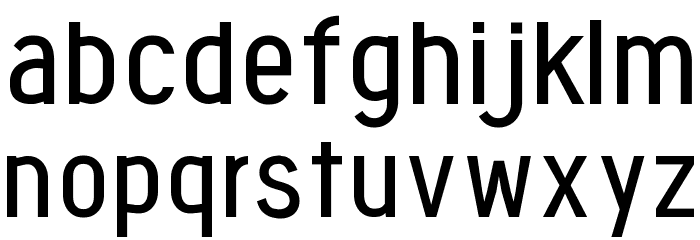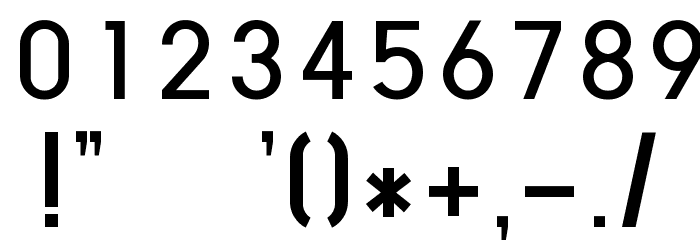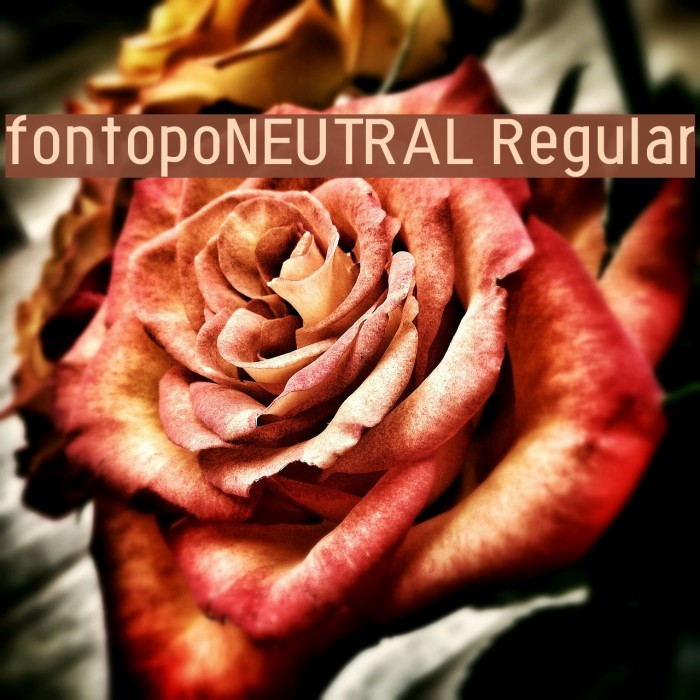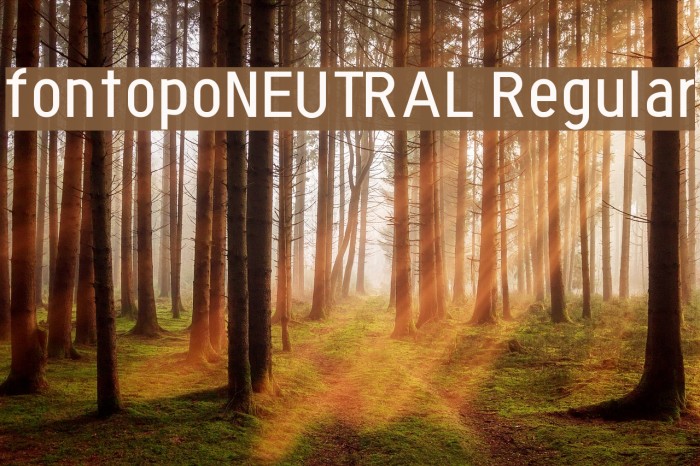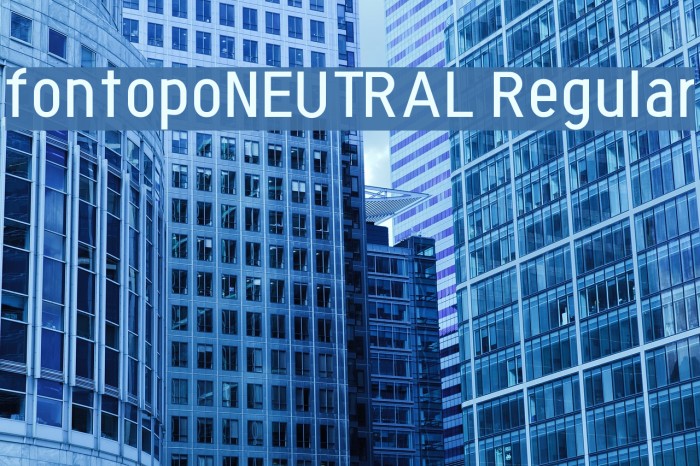
fontopoNEUTRAL Regular Font
This typeface features a clean and modern sans-serif design, characterized by its straightforward and geometric letterforms. The uppercase and lowercase letters maintain a consistent stroke width, contributing to a harmonious and balanced appearance. The numerals are clear and easily distinguishable, making them suitable for various applications. Special characters are designed with simplicity in mind, ensuring they blend seamlessly with the rest of the typeface. The overall design is versatile, making it suitable for both digital and print media.
A clean, modern sans-serif typeface with geometric letterforms.
- Proposed Projects: Ideal for branding, web design, editorial layouts, and signage due to its clarity and modern aesthetic.